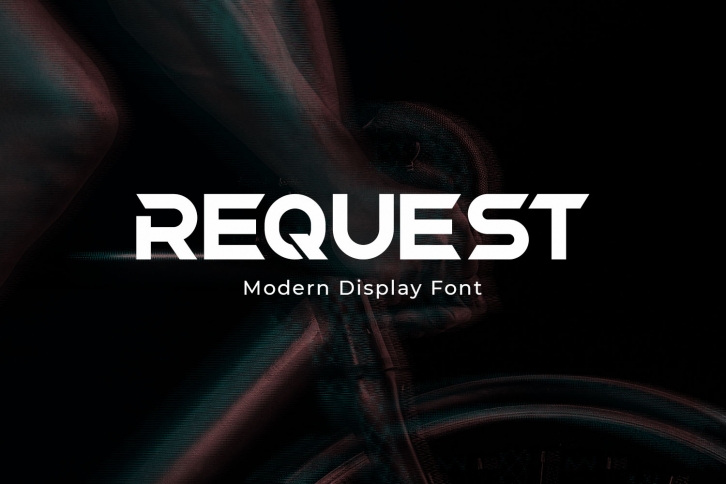
Request is a bold and authentic display font. It celebrates abstract shapes in all their eclectic beauty. This font will look truly outstanding in a wide range of contexts.Request is a bold and authentic display font. It celebrates abstract shapes in all their eclectic beauty. This font will look truly outstanding in a wide range of contexts.